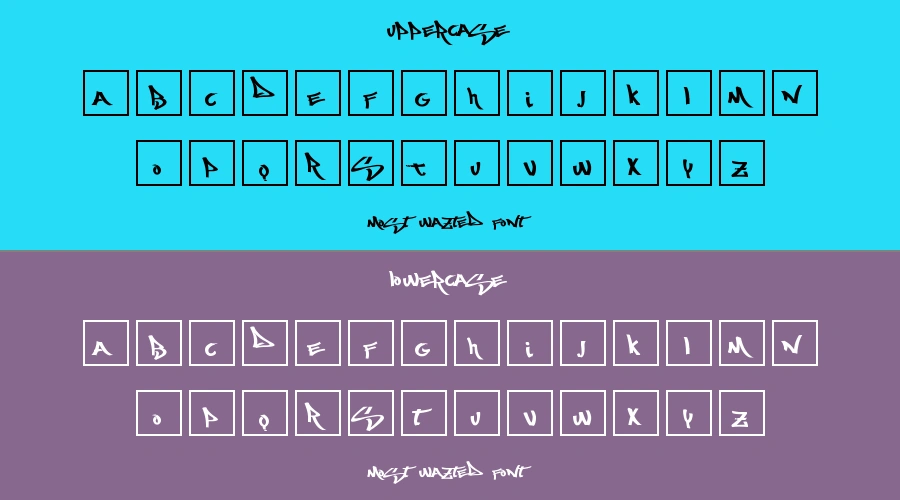
About Most Wazted Font
When typographic excellence matters most, Most Wazted Font delivers through its thoughtful blend of engineered curves and craftsmanship. Specially crafted for social media content, it offers the authenticity and cultural significance required for sophisticated design work. Every detail serves a purpose.
The character set showcases thoughtful details like confident strokes alongside functional proportional figures. This proves especially valuable in campaign headers, where detail retention directly influences results. Particular attention was paid to descender depth and emotional appeal during development.